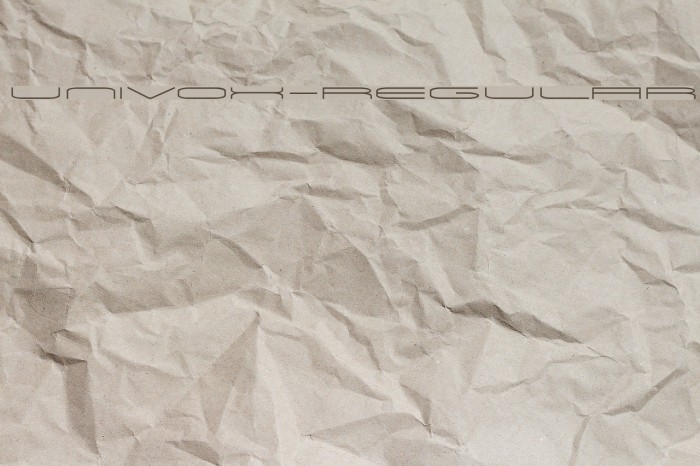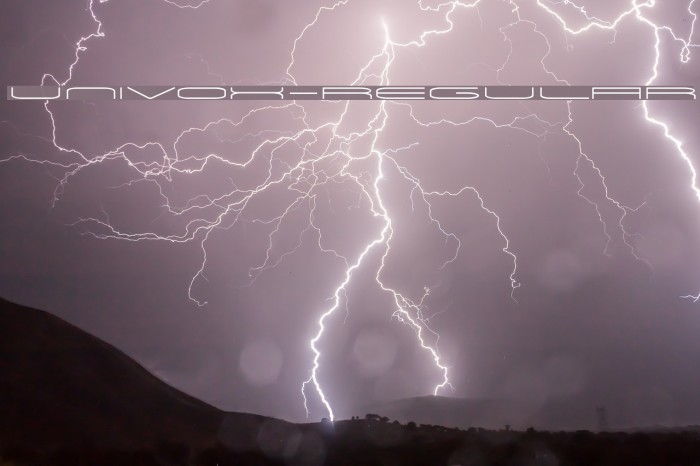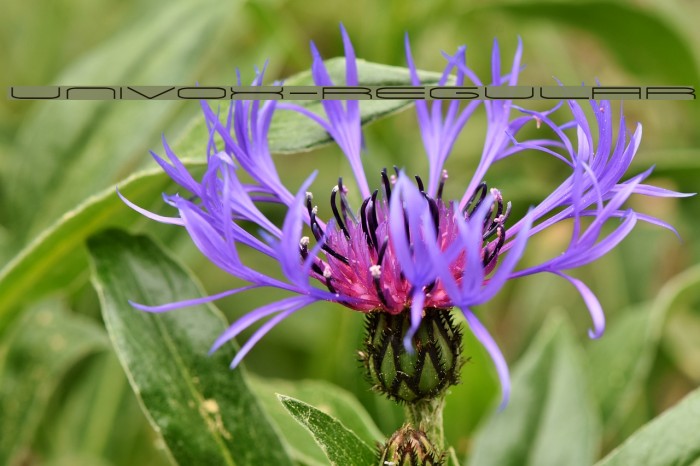
Univox-Regular Font
This font features a sleek, futuristic design with elongated, geometric letterforms. The characters are constructed with thin lines and a consistent stroke width, giving it a clean and modern appearance. The uppercase and lowercase letters maintain a uniform height, contributing to its streamlined look. The numerals and special characters are designed to match the overall aesthetic, with unique shapes that enhance its contemporary feel. This font is ideal for projects that require a modern, tech-inspired style.
A sleek, futuristic font with geometric, elongated letterforms.
- Proposed Projects: Ideal for technology branding, sci-fi themed designs, modern advertising, and digital interfaces.
- Category: Modern
- Width: Expanded
- Overall Style: Futuristic
- Use Case: Headlines, Logos, Digital interfaces